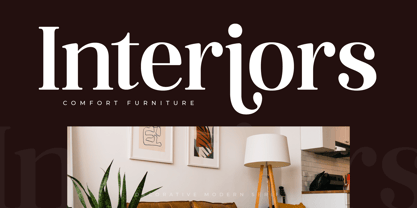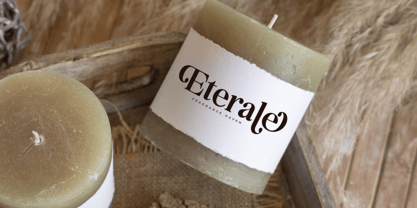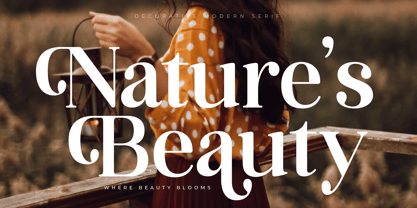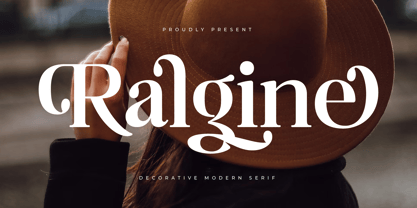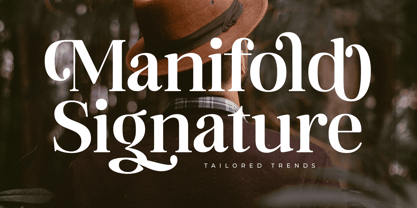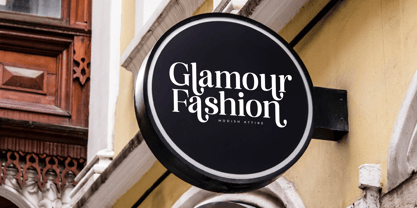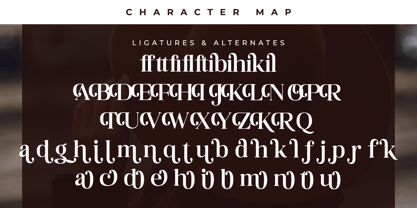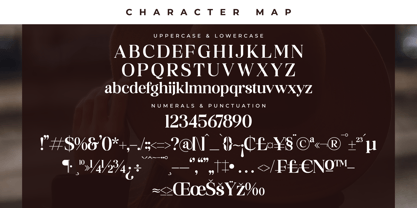
Ralgine
The Ralgine Font Family was designed by Heru Utama Putra and published by Letterena Studios. Ralgine contains 2 styles and family package options. More about this family
Ralgine – Decorative Modern Serif , from Letterena, is a Luxury Serif font, suitable for any projects such as: logos, branding projects, homeware designs, product packaging, mugs, quotes, posters, shopping bags, t-shirts, book covers, name card, invitation cards, greeting cards, label, photography, watermark, special events, and all your other luxury and beautiful projects that need a Luxury Serif taste.